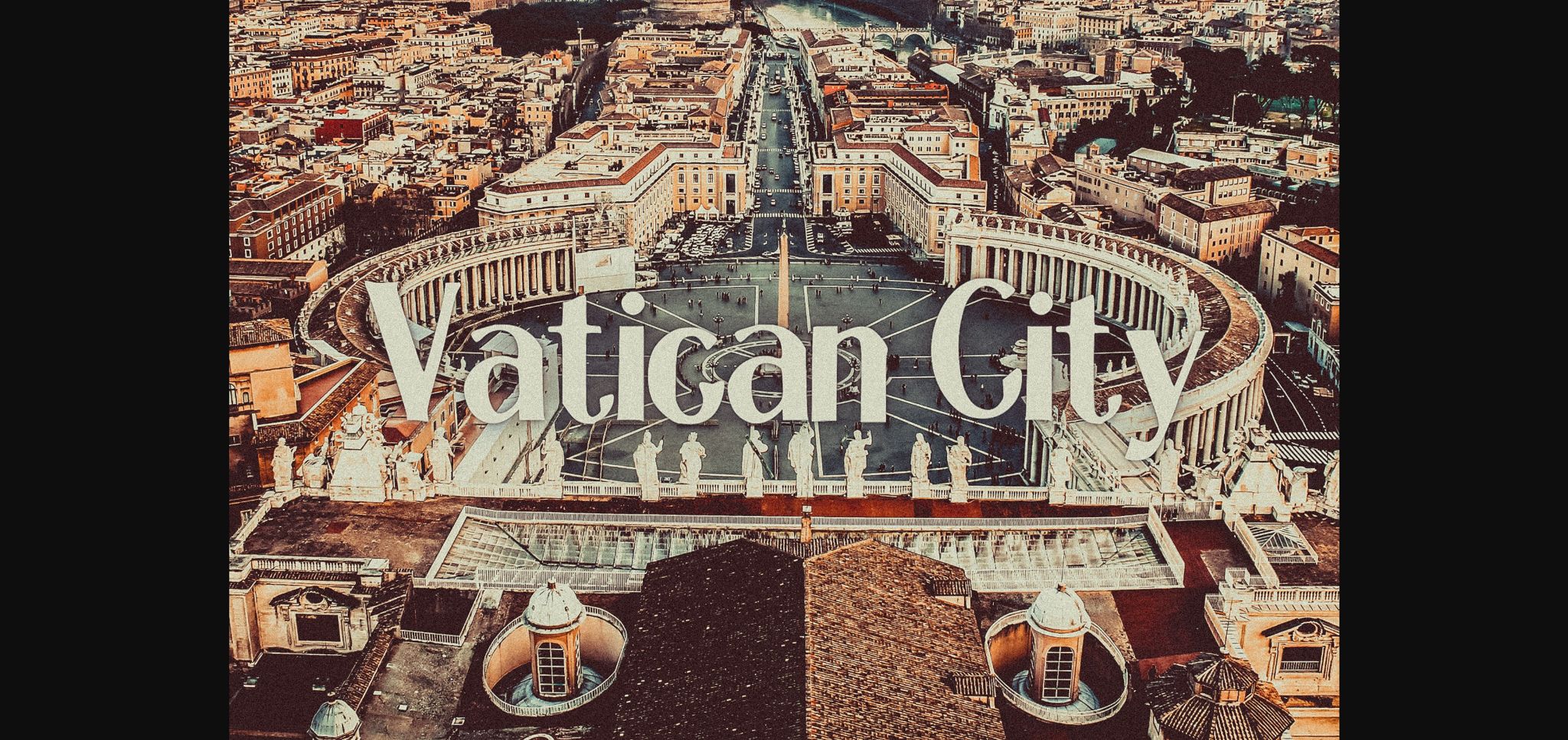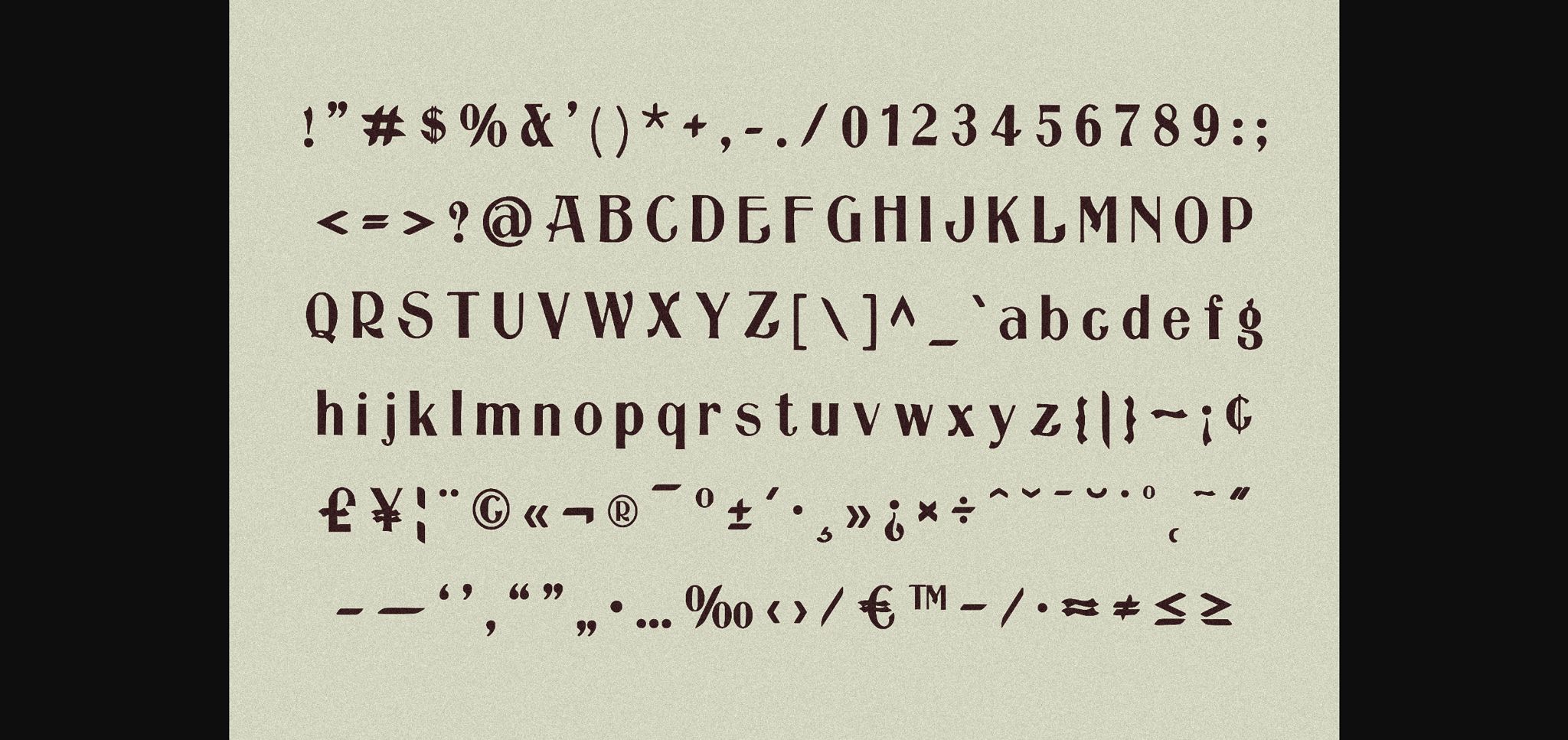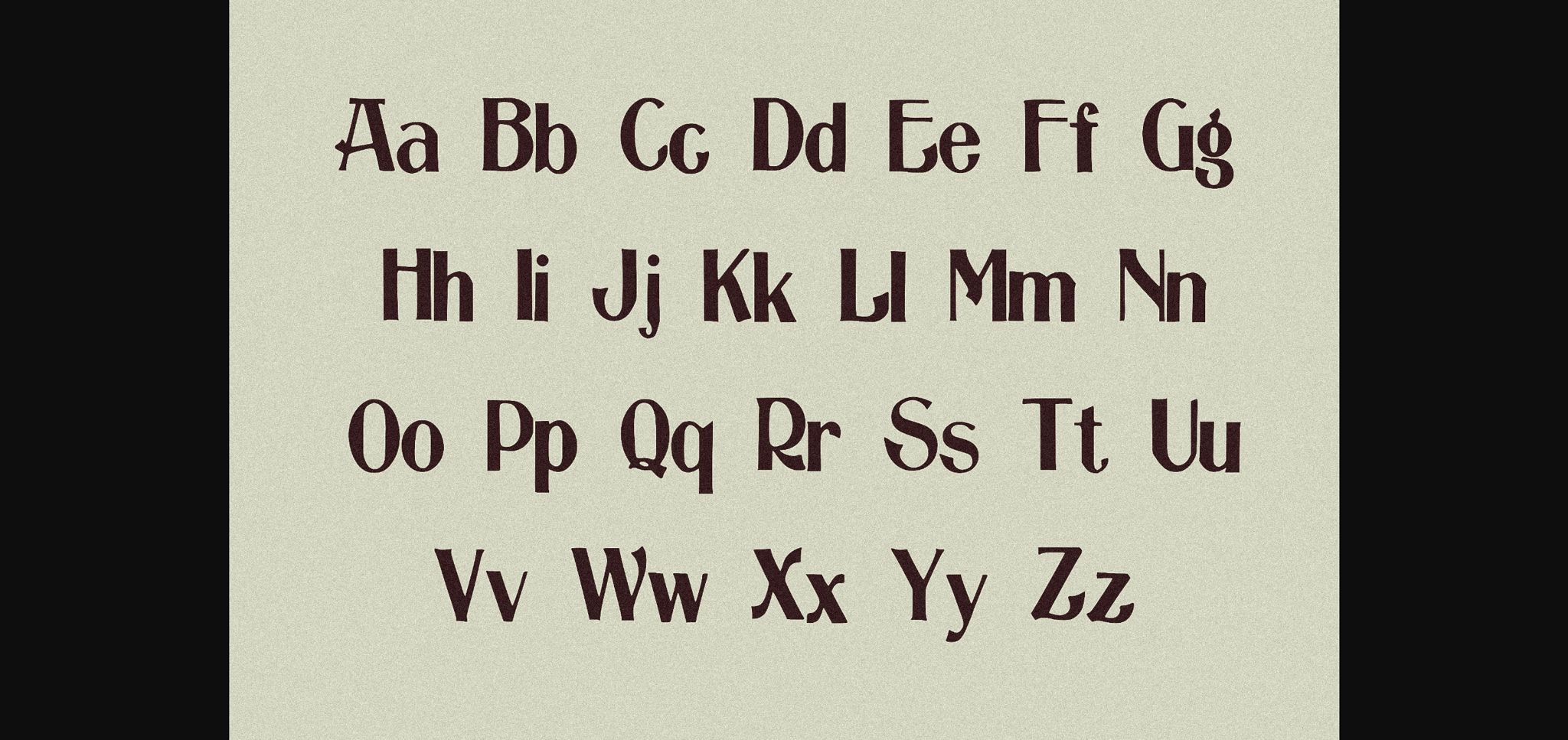
Vatican City Font
About Vatican City Font
Vatican City is a modern and elegant sans serif font. Stylish and fashionable, this font is perfect for a wide spectrum of applications and is guaranteed to add a classy touch.